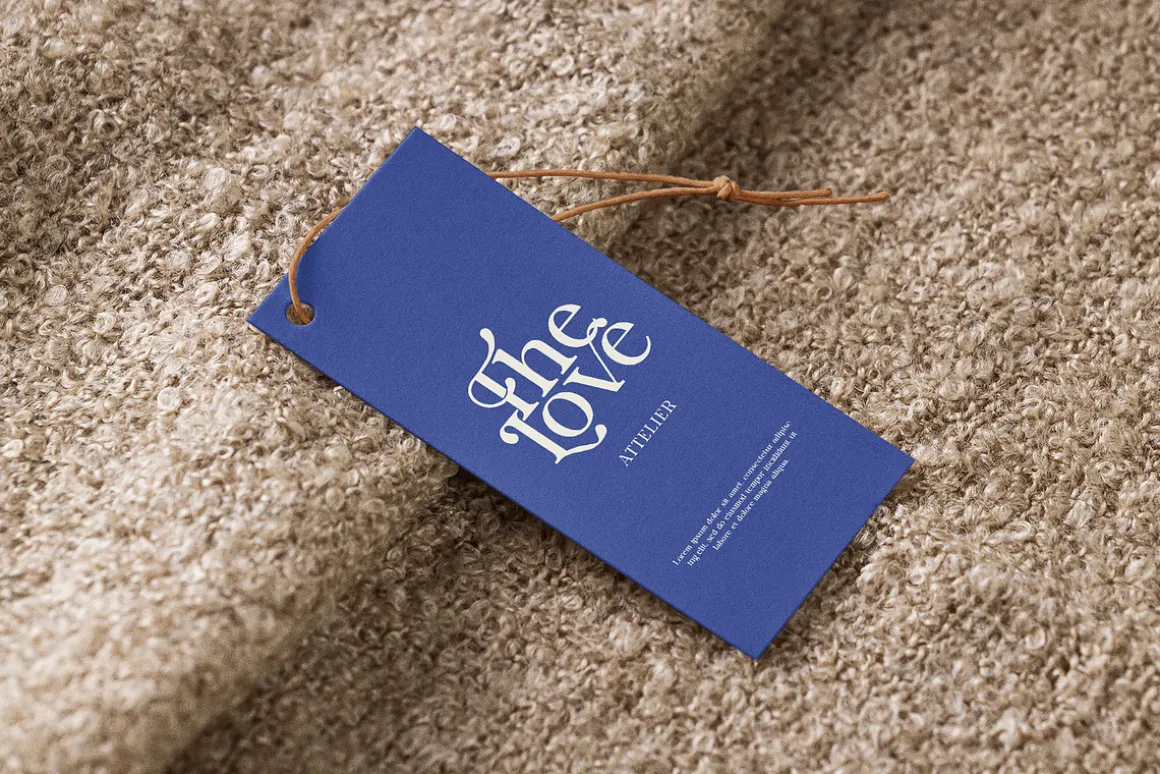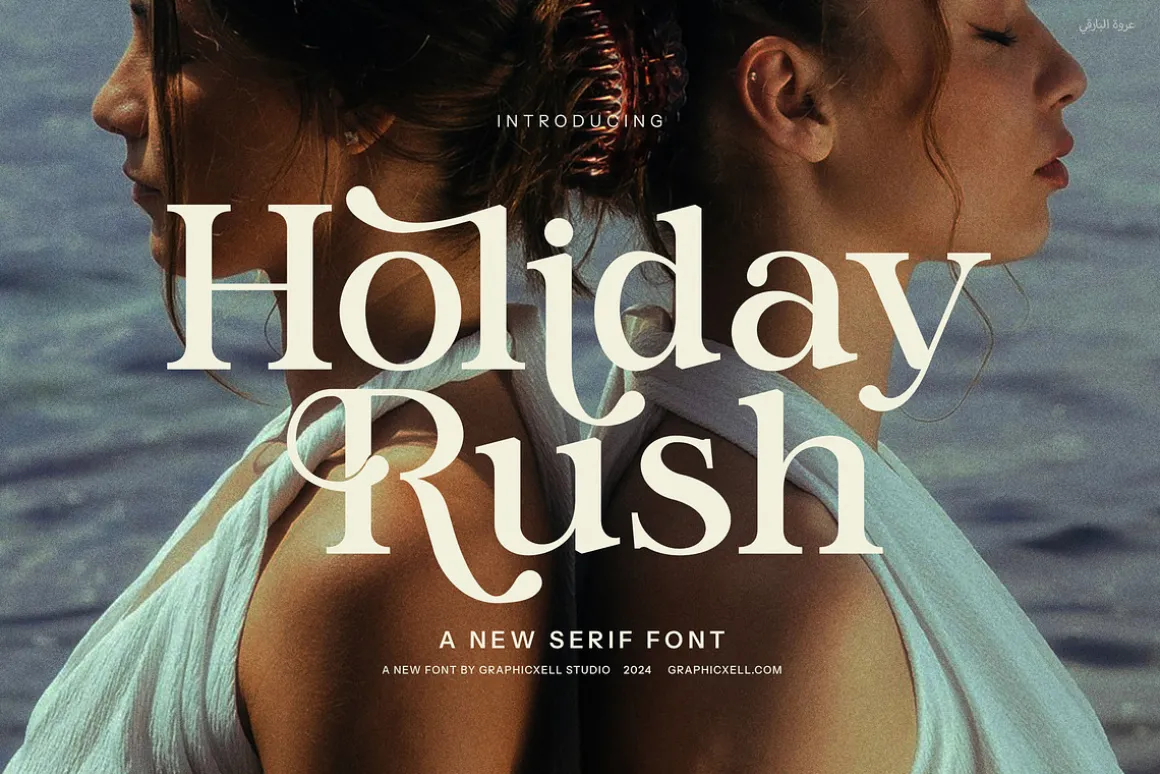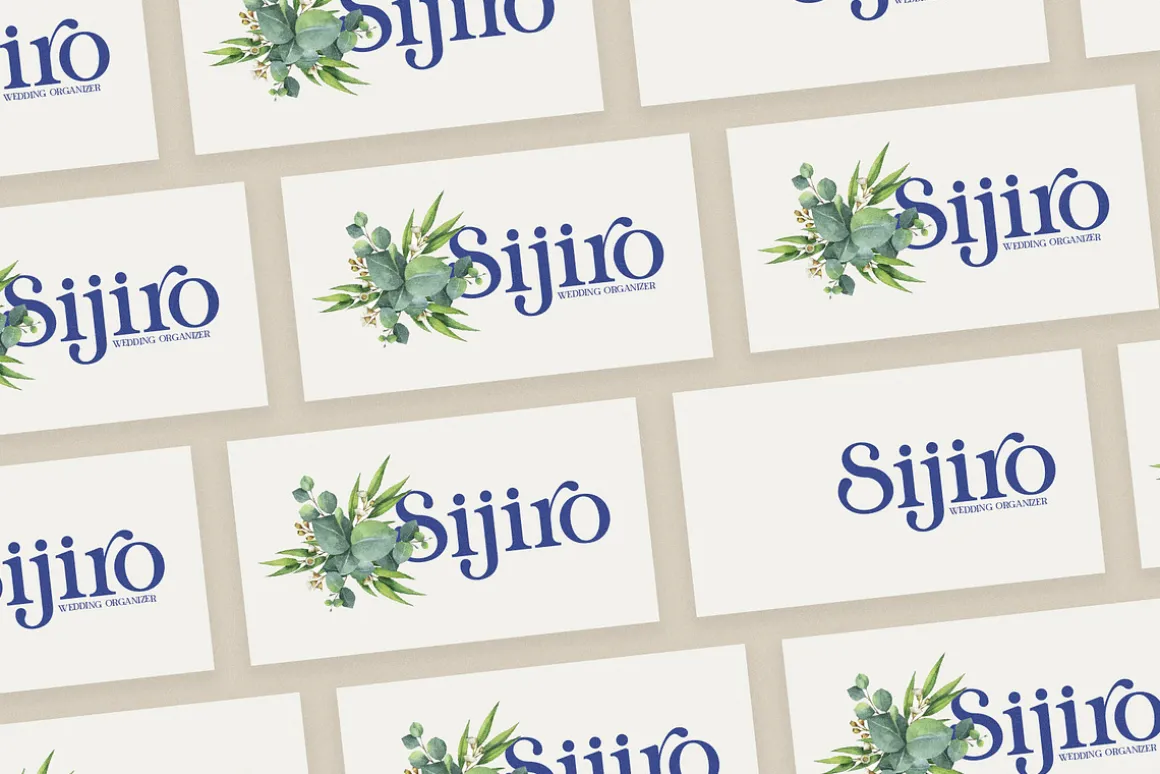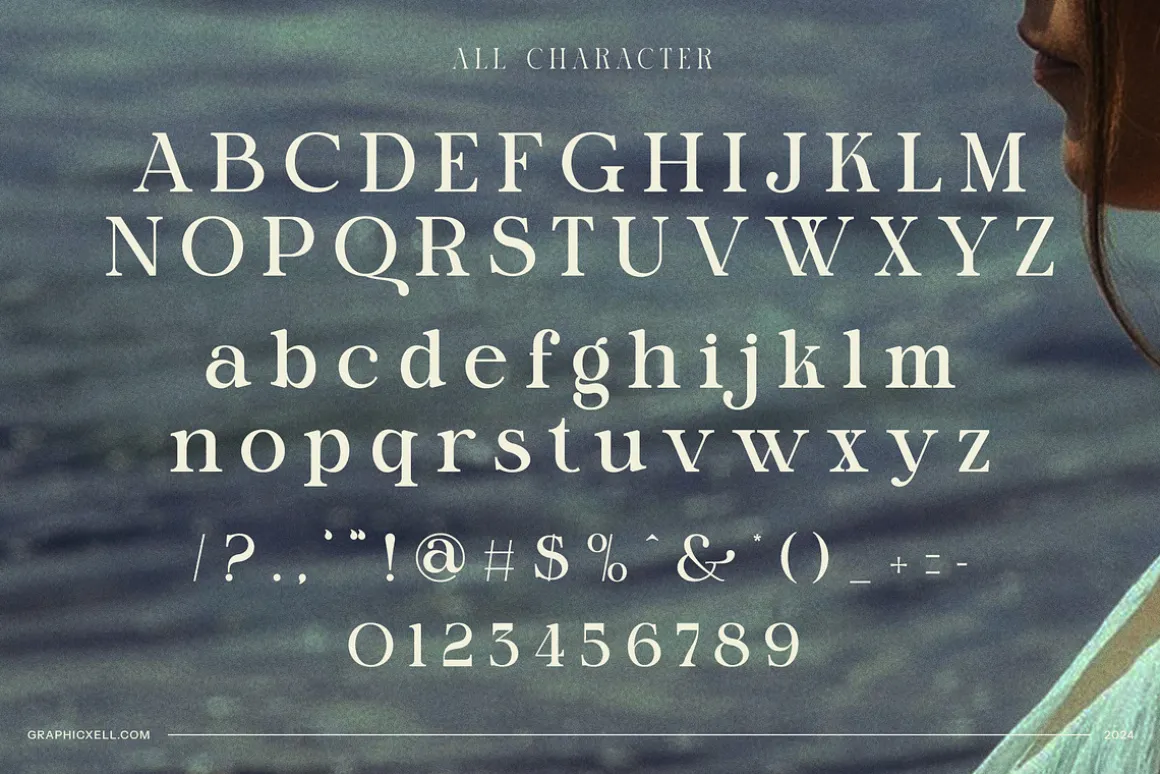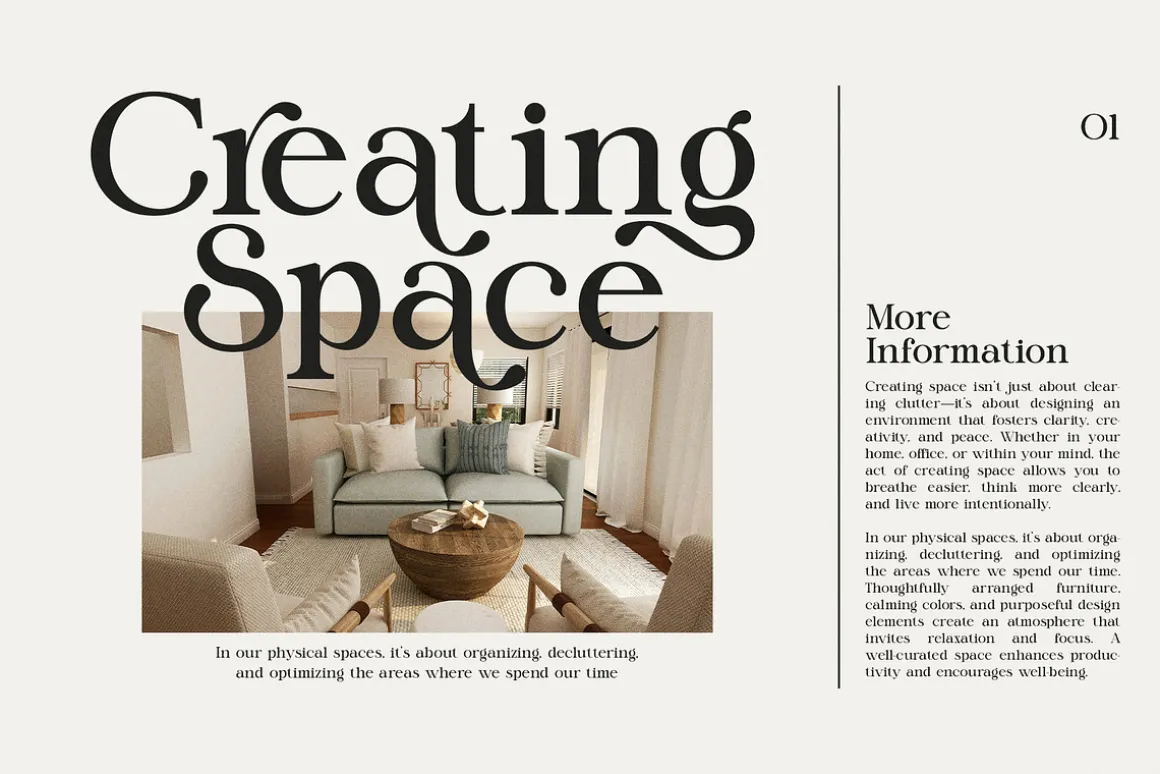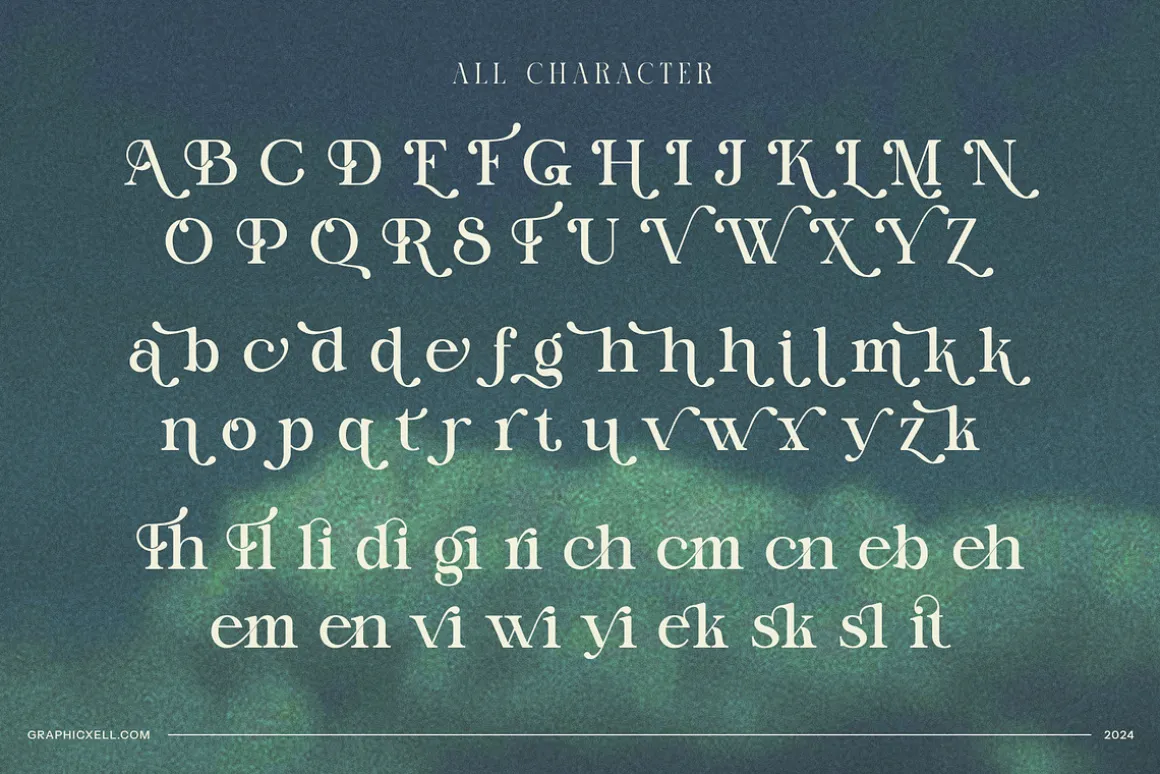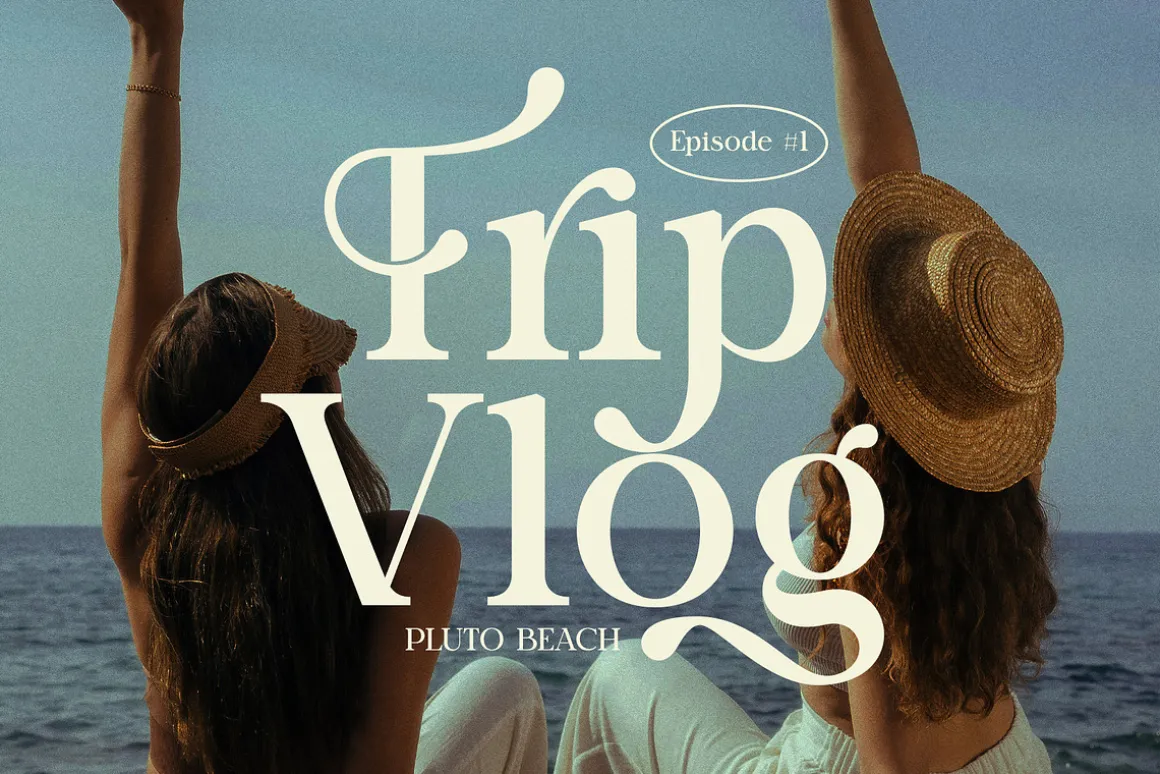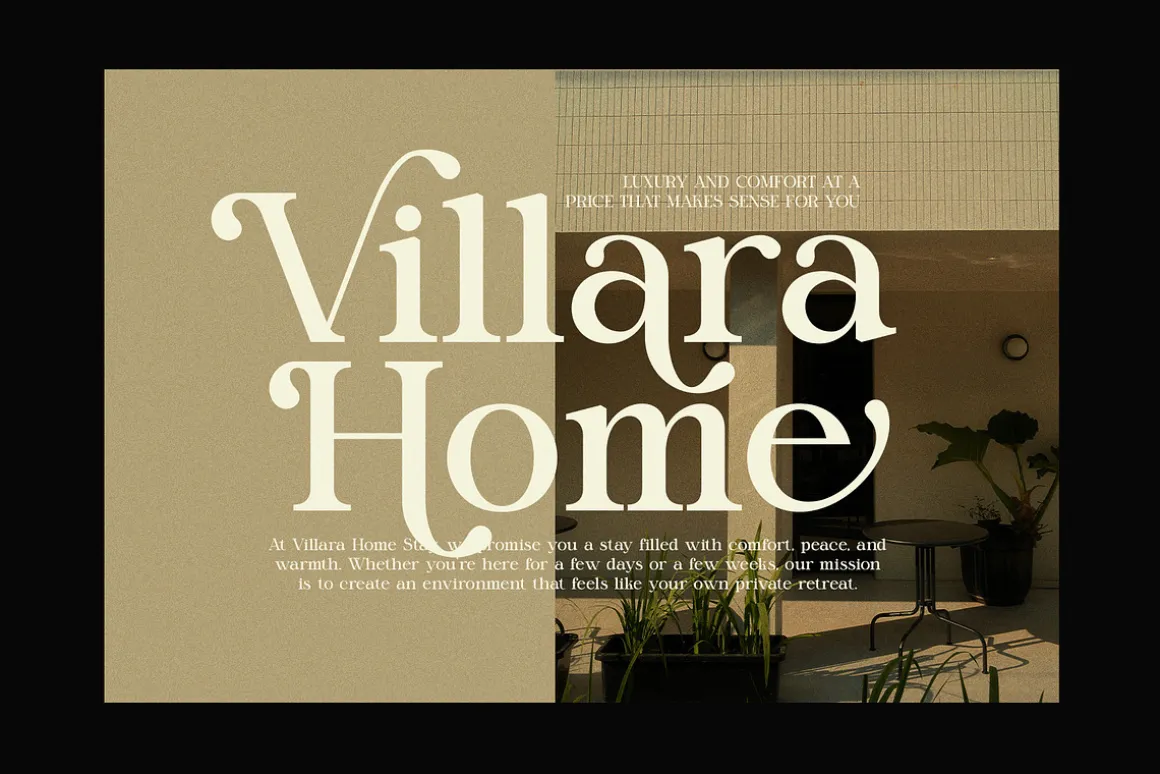
Introducing Holiday Rush Serif Font, a refined serif typeface that blends modern sophistication with festive charm. Designed to captivate, this font features graceful serifs, unique character shapes, and a touch of artistry through its delightful ligatures and alternate calligraphy-inspired details. Perfect for adding elegance and personality to your designs, Holiday Rush stands out as a versatile and timeless choice.
Whether you’re creating chic logos, building memorable brand identities, or designing eye-catching websites, Holiday Rush delivers unparalleled style. Its sleek and polished forms make it a natural fit for high-end magazines, editorial layouts, and product packaging. From boutique branding to holiday-themed advertisements, this font brings warmth and sophistication to every project.
Holiday Rush excels in balancing beauty with functionality. Its crisp, clean lines ensure readability, while the customizable ligatures and alternates allow for creative freedom. This makes it an ideal choice for everything from minimalist designs to more intricate compositions. Its charm lies in its ability to evoke both modern elegance and a sense of celebration, making it especially well-suited for festive campaigns, seasonal promotions, and special event branding.
Embrace the spirit of style and creativity with Holiday Rush Serif Font. Whether you’re designing for fashion, food, or lifestyle, this typeface transforms your projects into striking visual statements. Let Holiday Rush become your go-to font for elegant and impactful designs that leave a lasting impression.